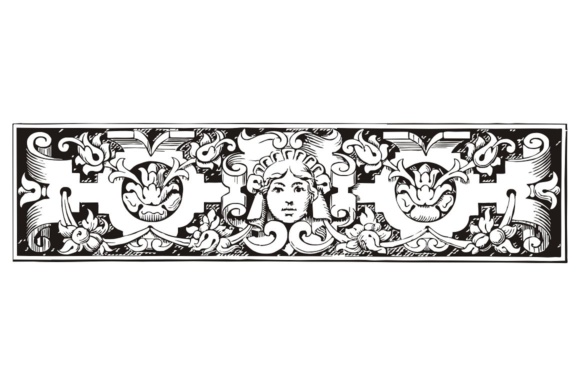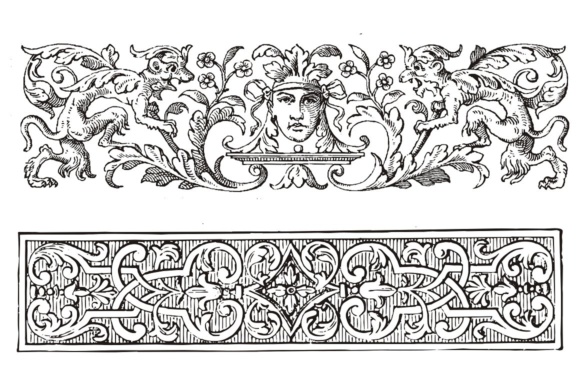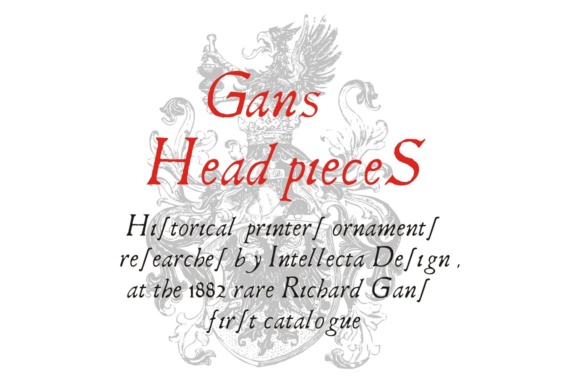
Gans Headpieces Font: A Rare and Historic Printer Ornament Collection
For designers, crafters, and typography enthusiasts, the Gans Headpieces Font is a treasure trove of historic printer ornaments. Researched by Intellecta Design, this font collection dates back to 1882, showcasing the first and very rare catalogue of Richard Gans, a renowned printer ornament manufacturer. In this article, we’ll delve into the history of Gans Headpieces Font, its significance, and how it can be used to add a touch of vintage elegance to your designs.
A Brief History of Gans Headpieces Font
In the late 19th century, printer ornaments were a staple in the printing industry. These decorative elements were used to add visual appeal to book covers, title pages, and advertisements. Richard Gans, a skilled manufacturer of printer ornaments, released his first catalogue in 1882. This catalogue featured a wide range of headpieces, borders, and other ornaments that were designed to help printers and publishers create visually stunning materials.
Fast-forward to today, and Intellecta Design has meticulously researched and digitized the Gans Headpieces Font, making it available for designers and crafters to use in their projects. This font collection is a rare gem, offering a unique glimpse into the world of historic printing and typography.
What is Gans Headpieces Font?
Gans Headpieces Font is a collection of historic printer ornaments, including headpieces, borders, and other decorative elements. The font features intricate designs, floral patterns, and geometric shapes, all crafted with precision and attention to detail. With over 100 unique ornaments, this font collection offers a wealth of creative possibilities for designers and crafters.
Key Features of Gans Headpieces Font
- Historic authenticity: The Gans Headpieces Font is based on an original 1882 catalogue, ensuring that the designs are authentic and true to their era.
- Wide range of ornaments: The font collection includes over 100 unique headpieces, borders, and other decorative elements.
- High-quality digitization: Intellecta Design has meticulously digitized the font, ensuring that the designs are crisp and clear.
Using Gans Headpieces Font in Your Designs
Gans Headpieces Font is an excellent choice for designers and crafters looking to add a touch of vintage elegance to their projects. Here are some ideas for using this font collection:
- Book covers and title pages: Use the headpieces and borders to create stunning book covers and title pages.
- Advertising and marketing materials: Add a touch of vintage charm to your advertisements, brochures, and other marketing materials.
- Stationery and invitations: Use the ornaments to create beautiful stationery, invitations, and greeting cards.
- Crafting and scrapbooking: Incorporate the designs into your crafting and scrapbooking projects for a unique and personalized touch.
Gans Headpieces Font is a rare and historic font collection that offers a unique glimpse into the world of printer ornaments. With its intricate designs, floral patterns, and geometric shapes, this font collection is perfect for designers and crafters looking to add a touch of vintage elegance to their projects. Whether you’re creating book covers, advertising materials, or crafting projects, Gans Headpieces Font is an excellent choice. So why not explore this beautiful font collection and discover the art of historic typography?